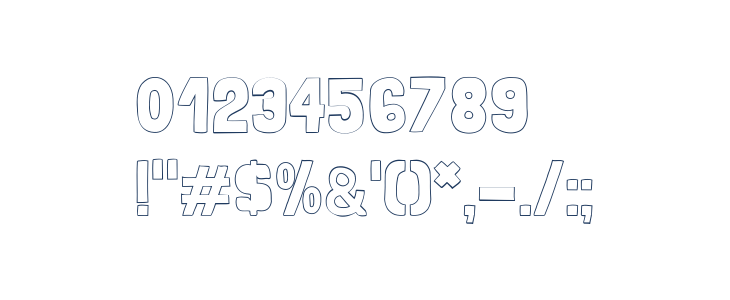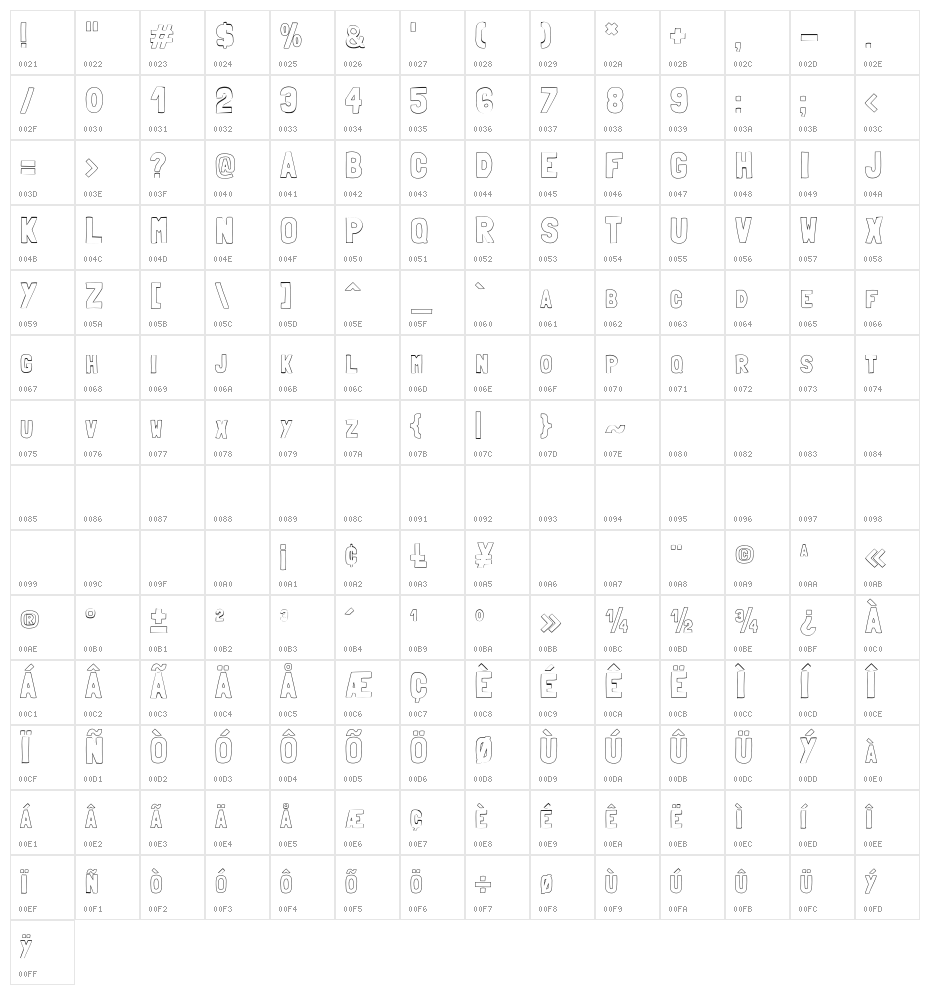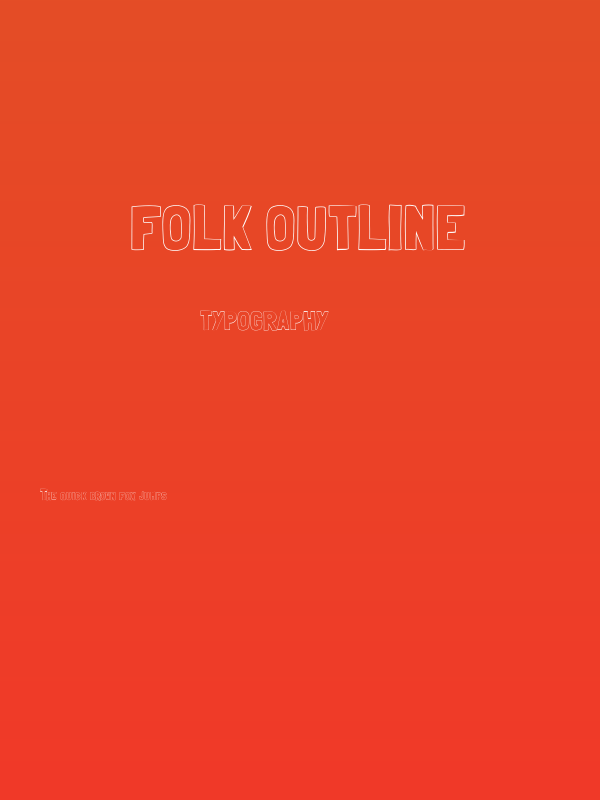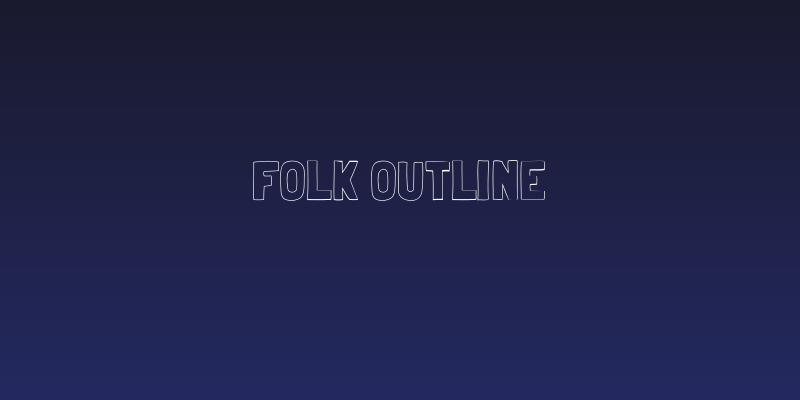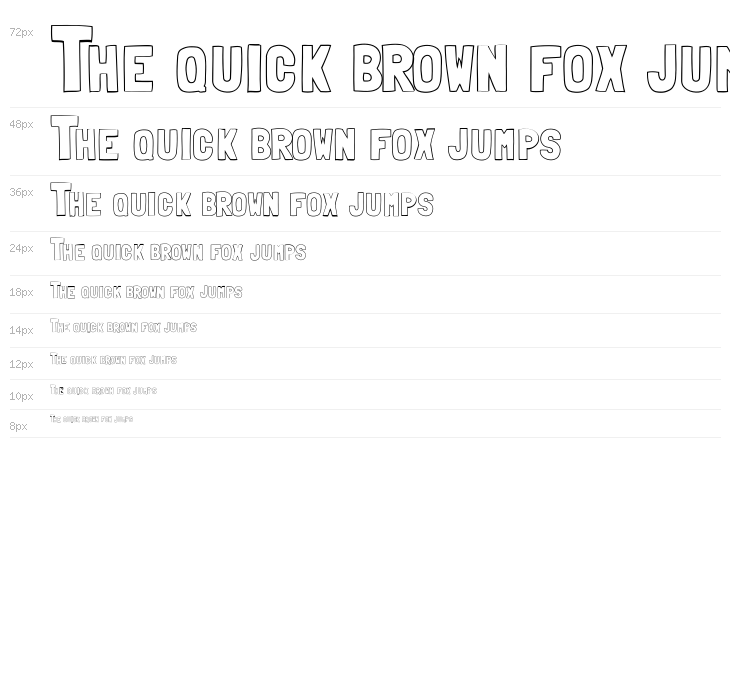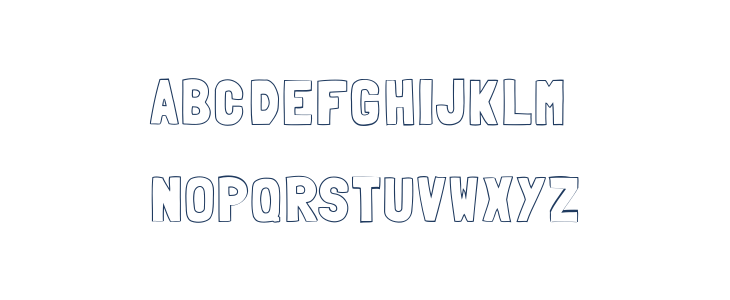
Folk outline Font
Folk outline Description
This font features a bold, outlined style that gives it a distinctive and eye-catching appearance. The characters are uppercase and lowercase letters, along with numbers and a variety of special symbols. Each character is defined by a thick outline, creating a hollow effect that adds depth and dimension. The design is clean and geometric, with consistent line thickness throughout. This font is ideal for projects that require a strong visual impact, such as posters, headlines, and branding materials. Its playful yet structured form makes it versatile for both modern and retro-themed designs.
| Proposed Projects | Ideal for posters, headlines, branding, and retro-themed designs. |